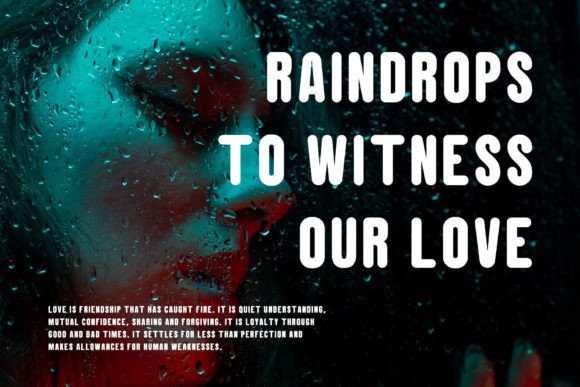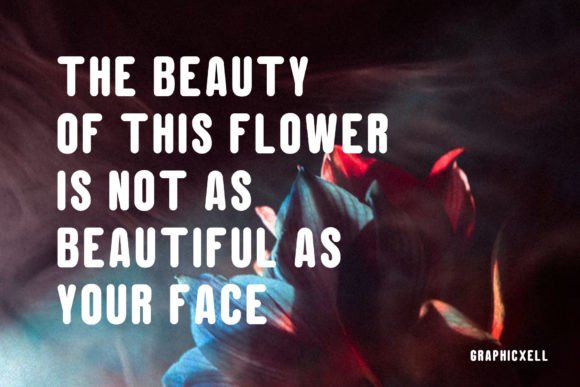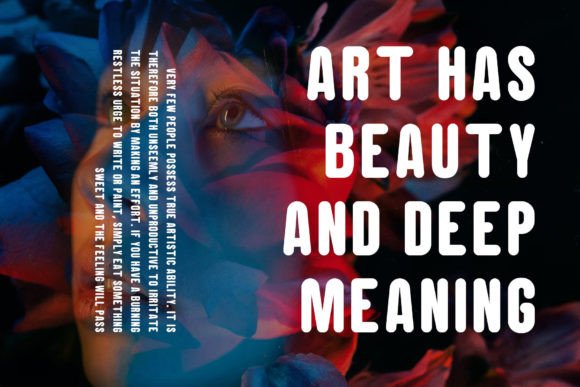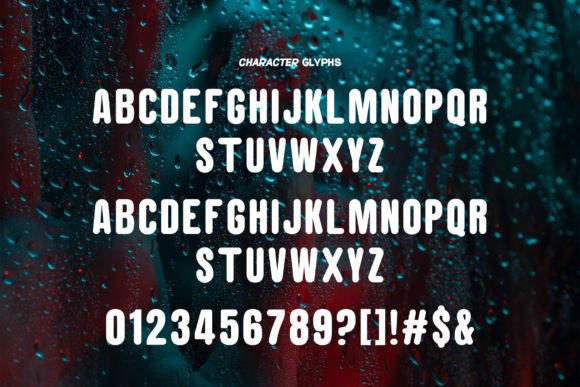
Introduction to Rooster Font
Have you ever stared at a blank canvas, waiting for inspiration to strike? That’s exactly where I was when I stumbled upon the Rooster Font – and it changed everything. Its modern twist on the classic sans-serif style has been the perfect catalyst for my creative projects, adding a touch of friendliness and professionalism that’s hard to resist.
As a designer, you’re constantly on the lookout for the perfect font to elevate your work. And that’s exactly what the Rooster Font does – it brings a high-quality, polished design to your creative projects, making them stand out from the crowd. Whether you’re working on a project with a transparent background or need a free download for your next design resource, the Rooster Font is the perfect addition to your toolkit.
With its clean lines and soft curves, this versatile typeface is a valuable resource for designers of all levels, offering a perfect balance between friendliness and professionalism.
Key Features of Rooster Font
- High-quality design resource ideal for creative projects, including illustrations, graphics, and typography.
- Features a unique, hand-drawn design style with intricate details, making it a standout choice for designers seeking a distinctive look.
- High-resolution design, suitable for use in print and digital applications, including business cards, brochures, and website graphics.
- Perfect for designers who value a high-quality, unique design resource that adds a touch of personality to their creative projects.
Honest Review: Rooster Font
I recently came across the Rooster Font, a stylish and modern sans-serif typeface that’s perfect for creative projects. One of its standout features is the high-quality design, which makes it an excellent addition to any design resource.
However, I do have a few minor complaints. ⚠️ The font is not as extensive as some other sans-serif typefaces, with only a limited number of weights and styles available. Additionally, the font may not be as suitable for projects that require a more formal or traditional look.
Overall, I’m impressed with the Rooster Font and would recommend it to designers looking for a stylish and modern typeface for their creative projects.
Tips for Getting the Most Out of Rooster Font
Rooster Font is a versatile design resource that can be used in a variety of creative projects, including logos, posters, and infographics. It’s also a great option for creating eye-catching titles and headings.